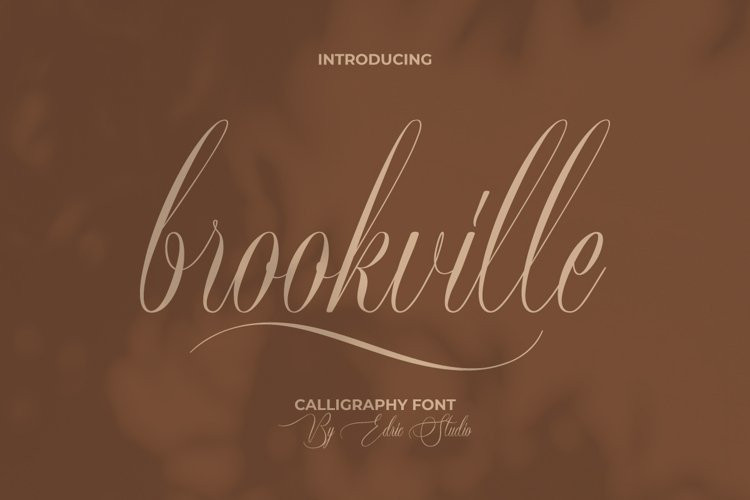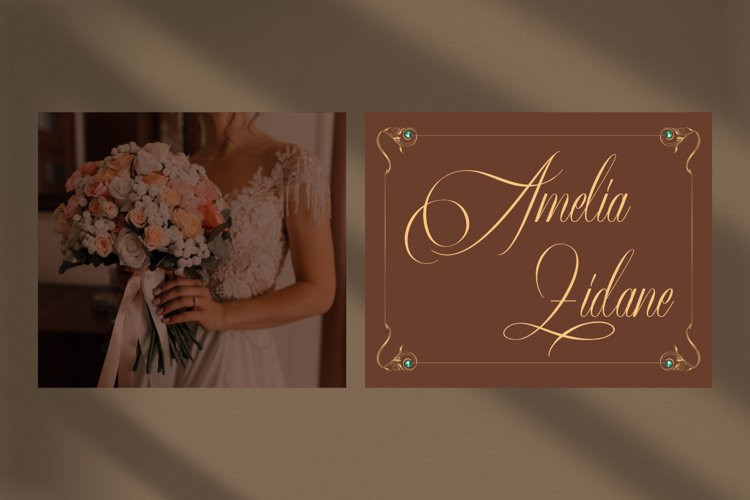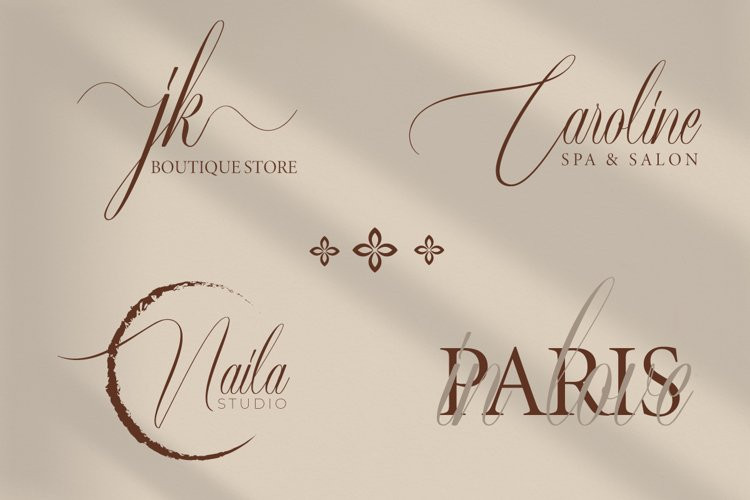
Brookville Font
Brookville Font is a calligraphy font script with stunning handwriting style, handcrafted from our Studio here in Indonesia. Brookville Font is an original handwritten script typeface with unique look. It has a stunning characters set, perfectly managed with well spaced and kerning. The theme style of this font is simple. elegant, sophisticated, stylish, clean and classic signature style.